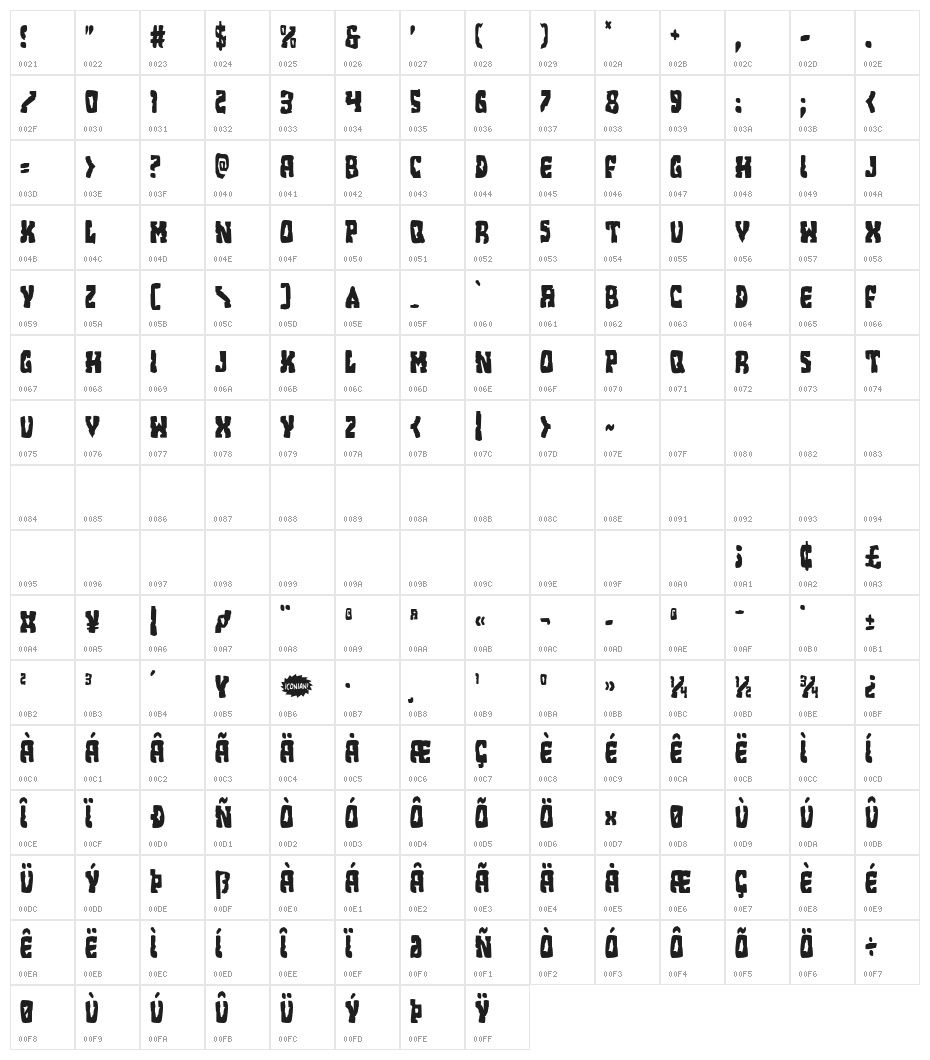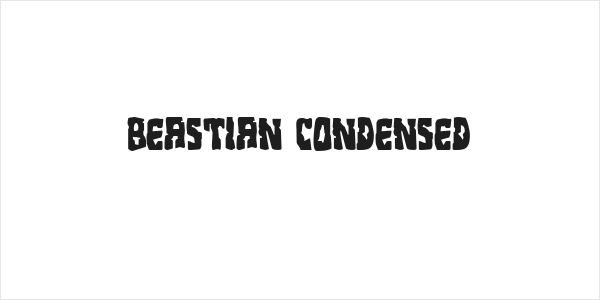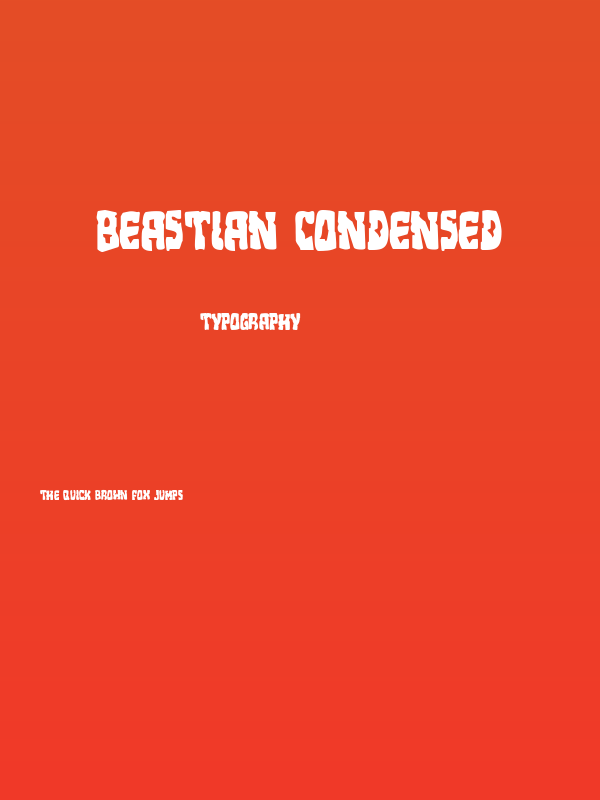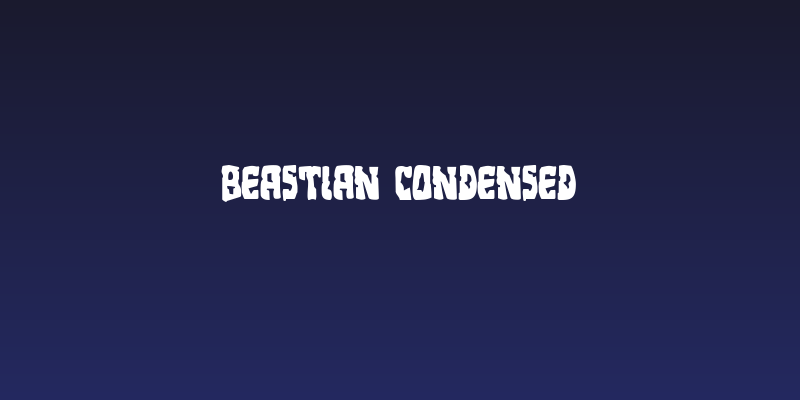
Beastian Condensed Font
Beastian Condensed Description
This font features a bold and condensed style with a rugged, textured appearance. The characters have a strong presence, with thick strokes and irregular edges that give it a hand-crafted, organic feel. The uppercase and lowercase letters maintain a consistent height, contributing to its compact look. The numbers and special characters follow the same design principles, ensuring uniformity across all glyphs. Its unique style makes it stand out, ideal for projects that require a distinctive and eye-catching typeface.
| Proposed Projects | Ideal for posters, logos, branding, and any design requiring a bold statement. |